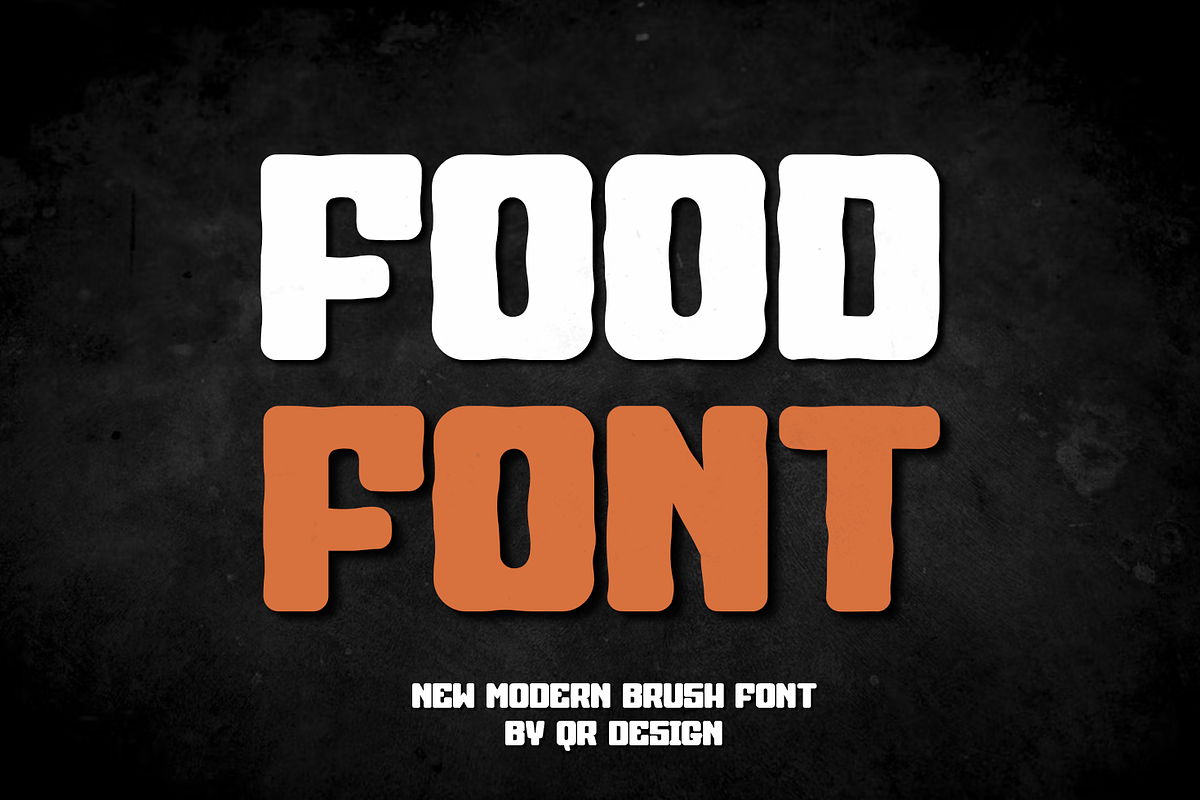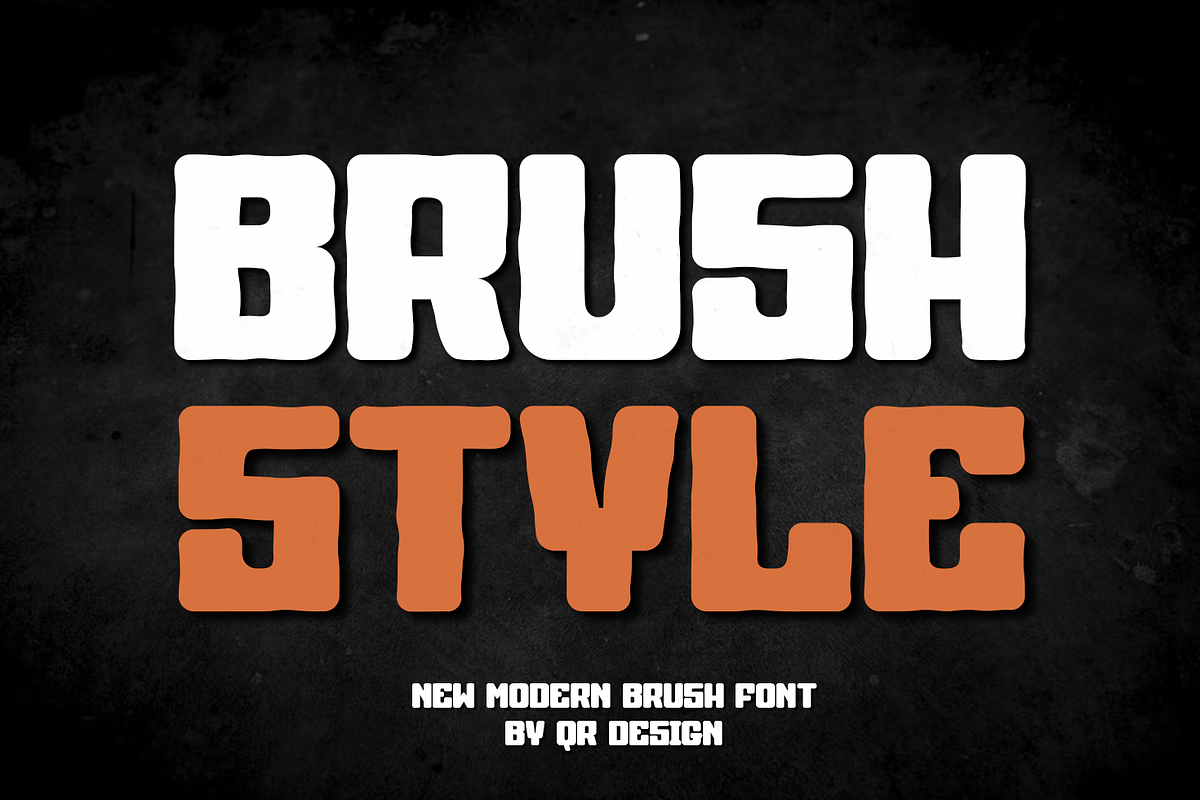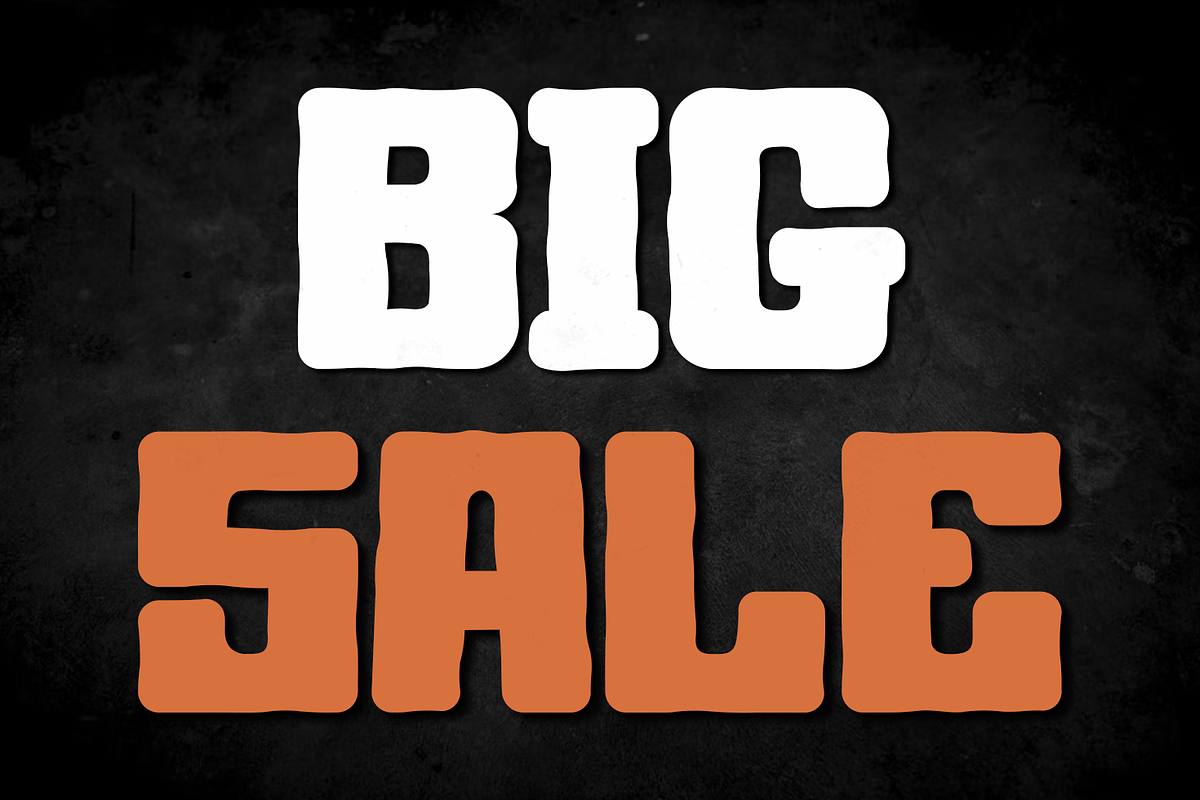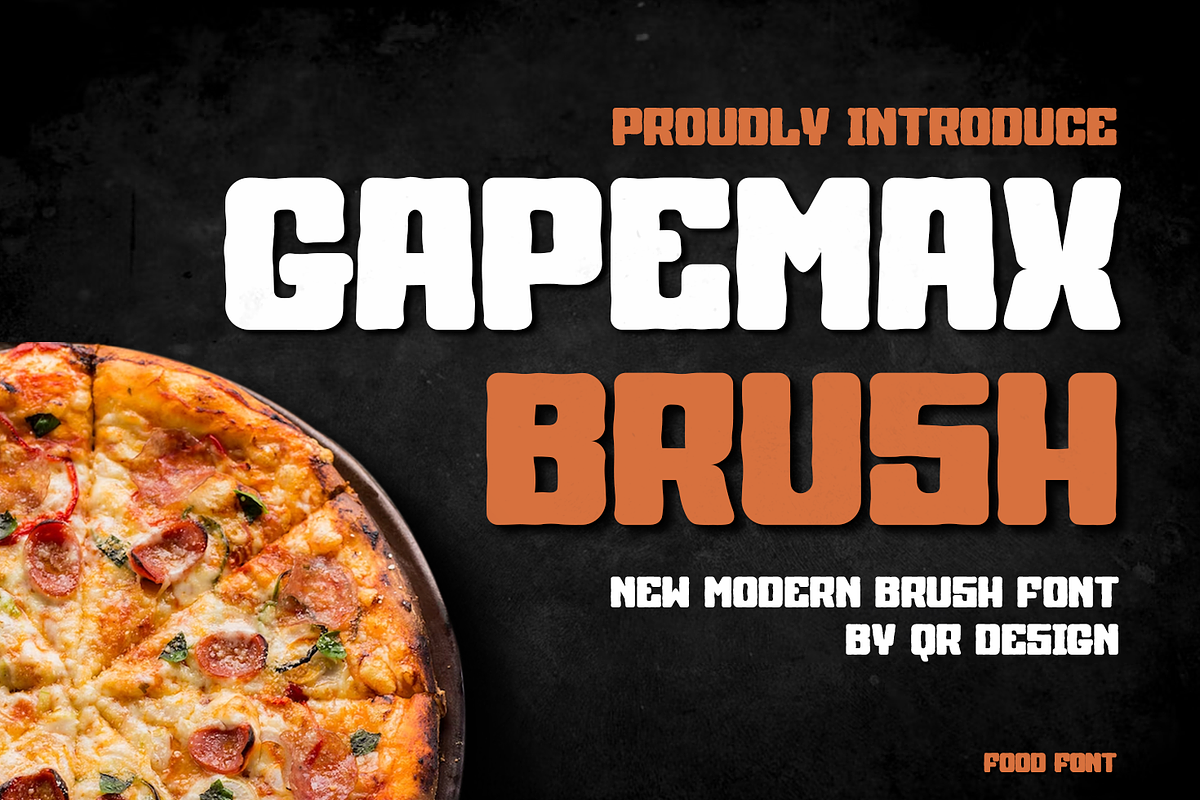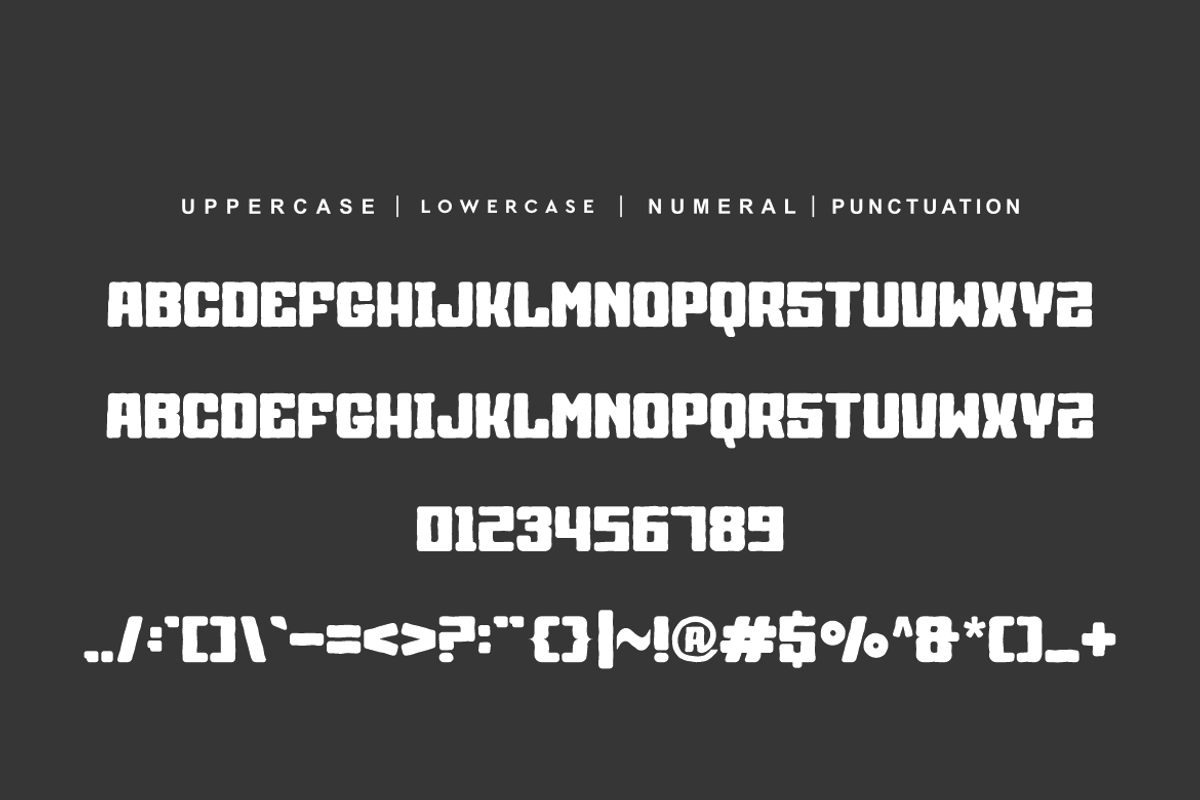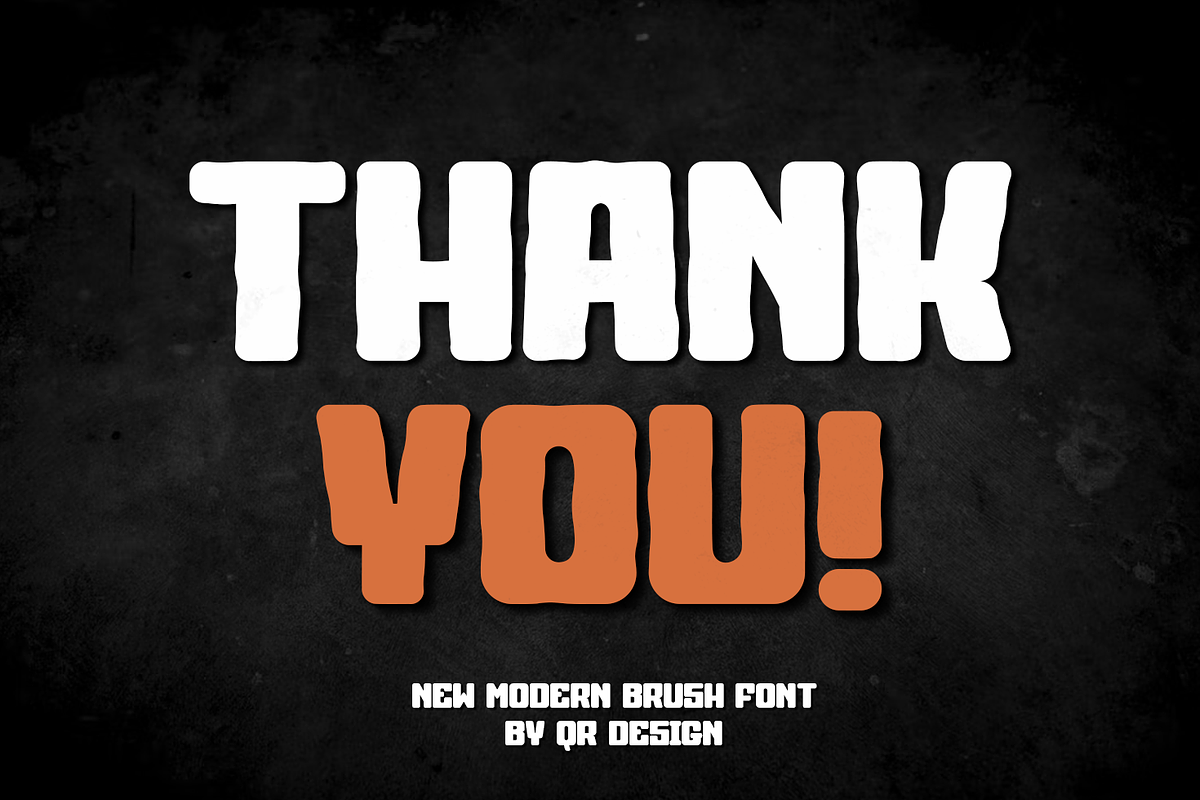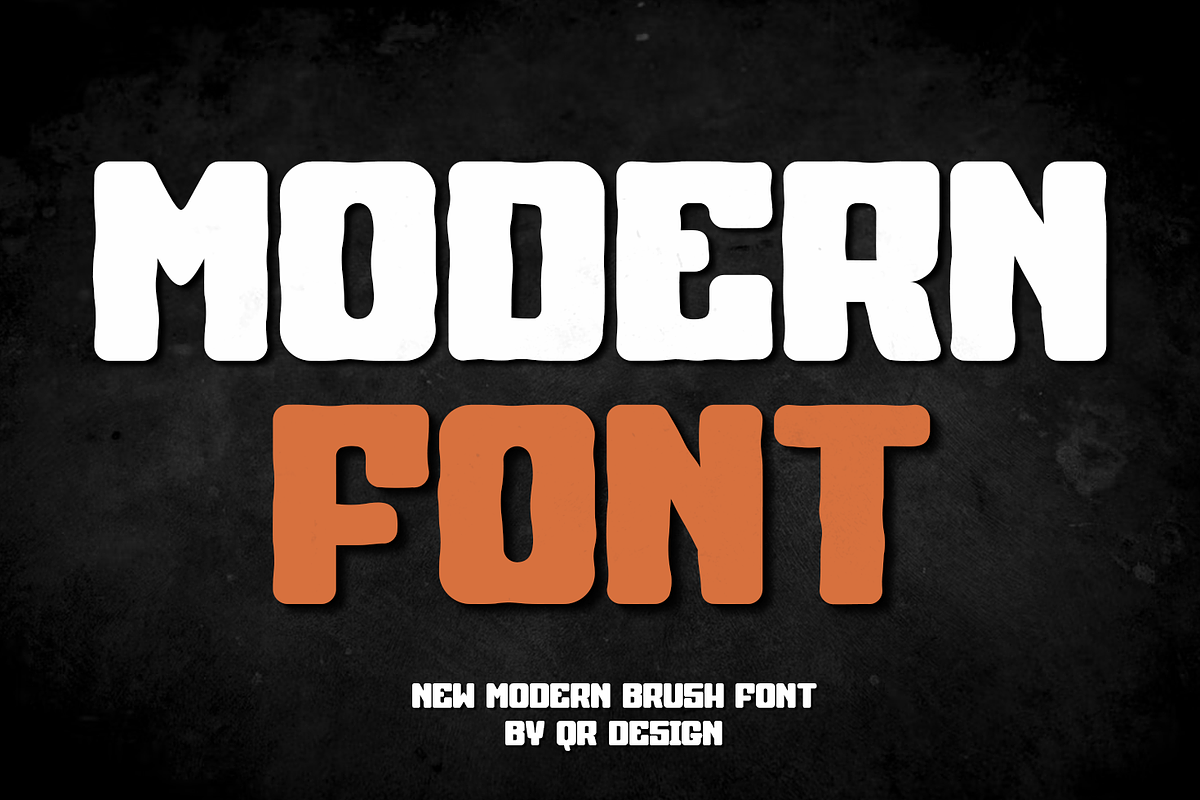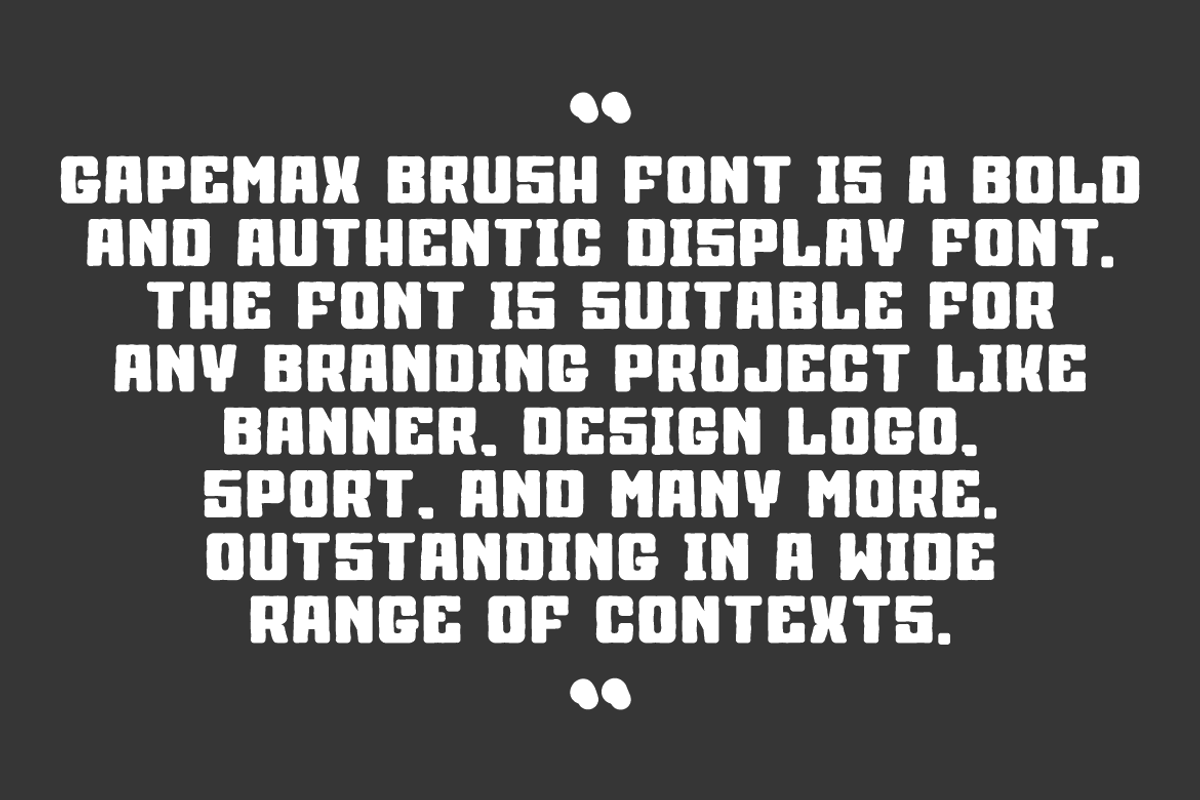
Gapemax Brush
Gapemax Brush Font is a bold and authentic display font. The font is suitable for any branding project like logo, sport, food, and many more. Outstanding in a wide range of contexts.